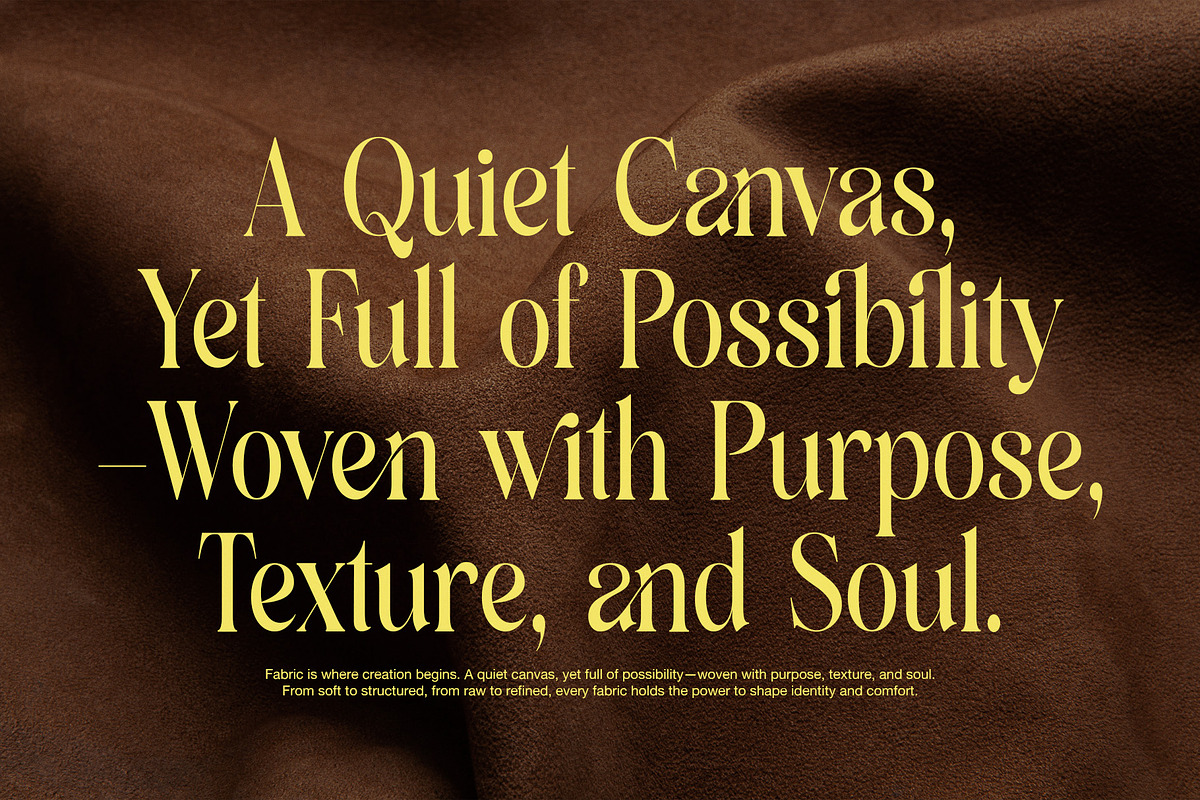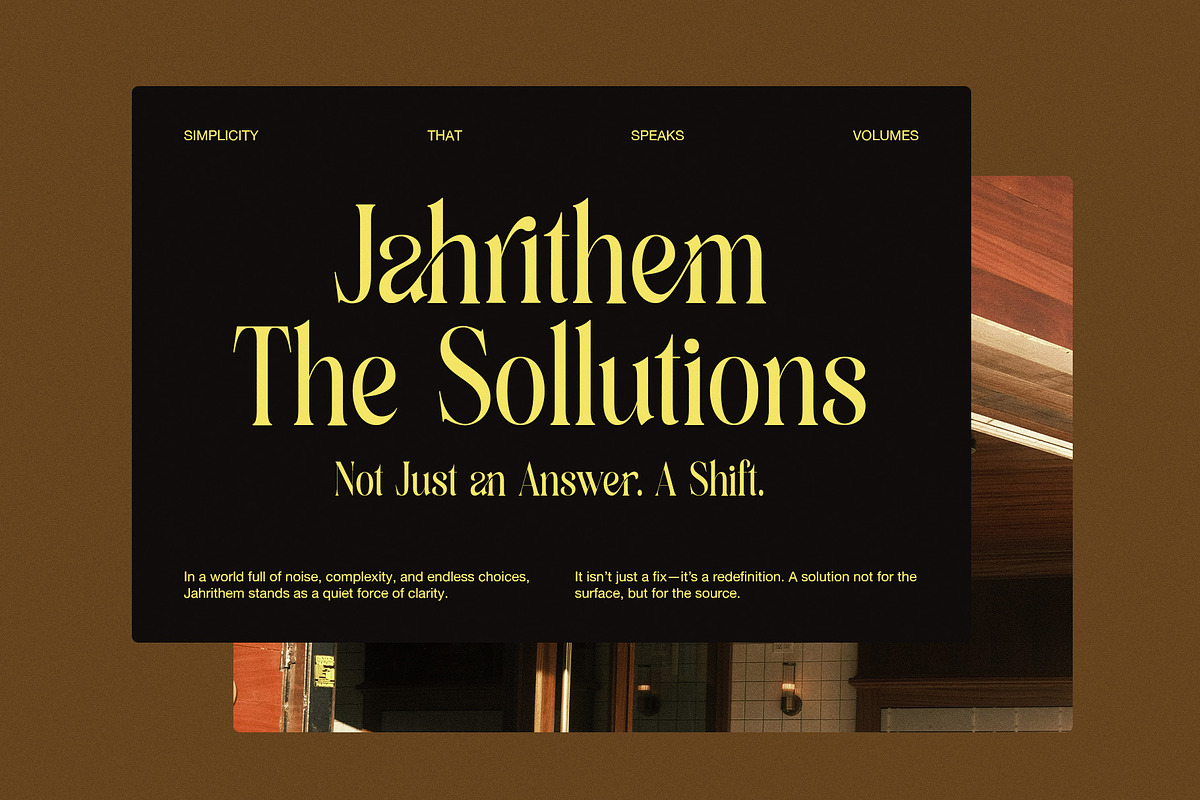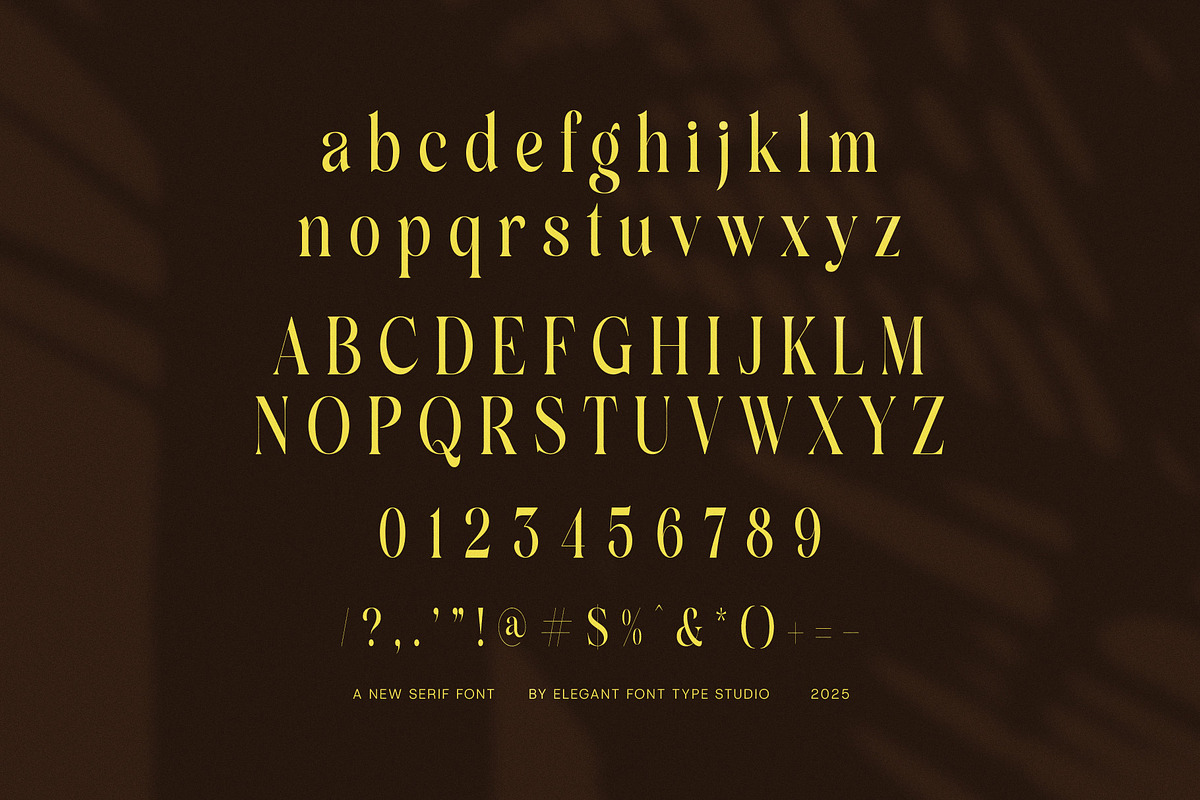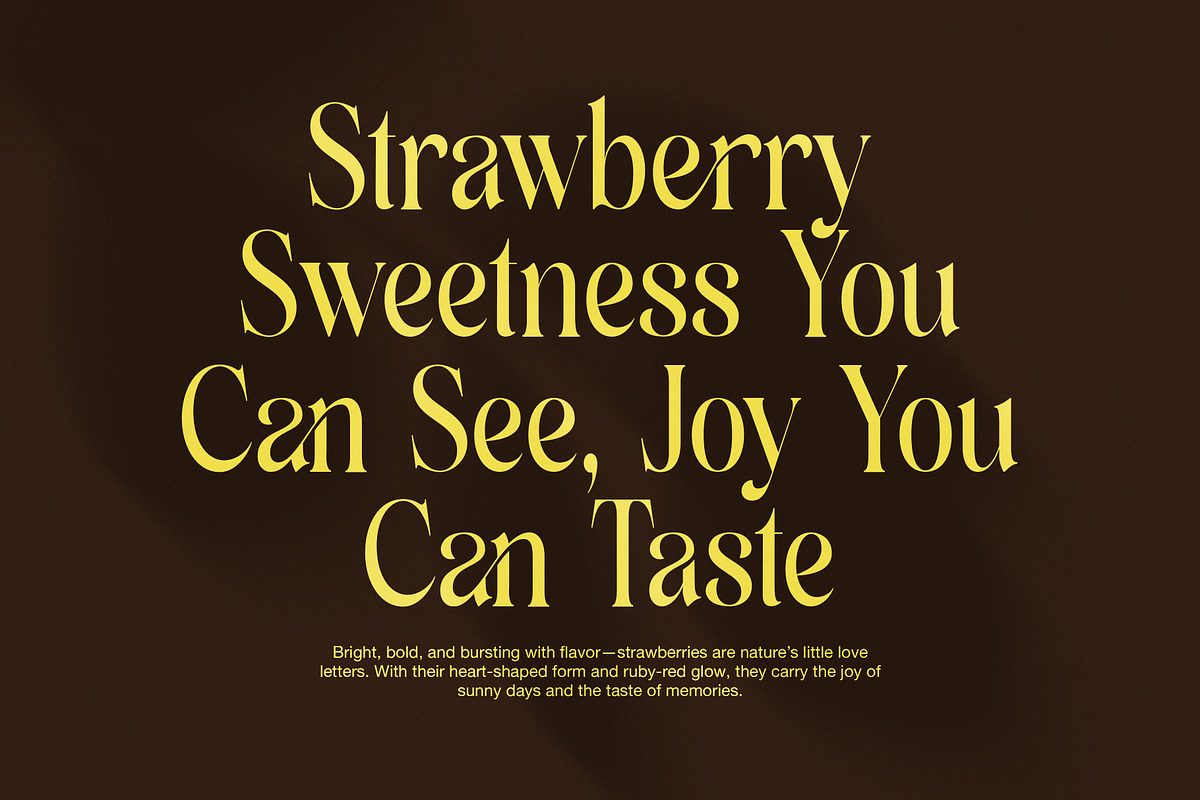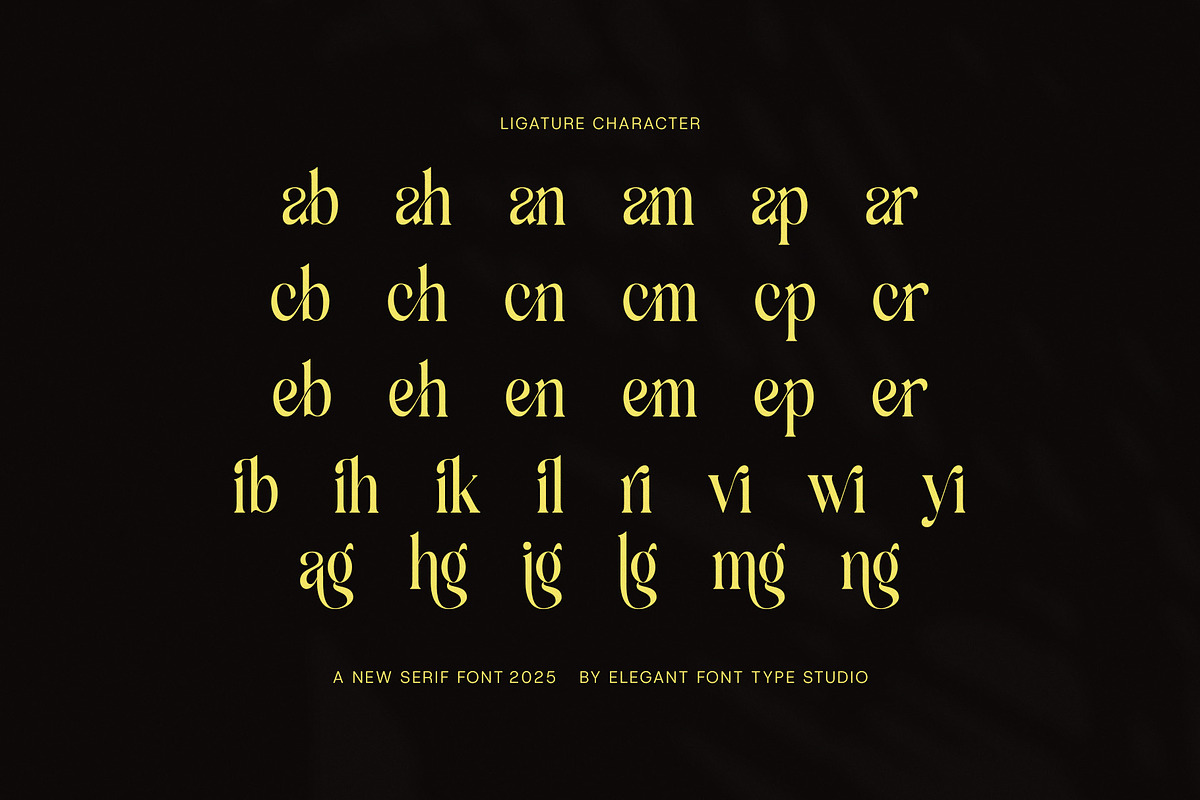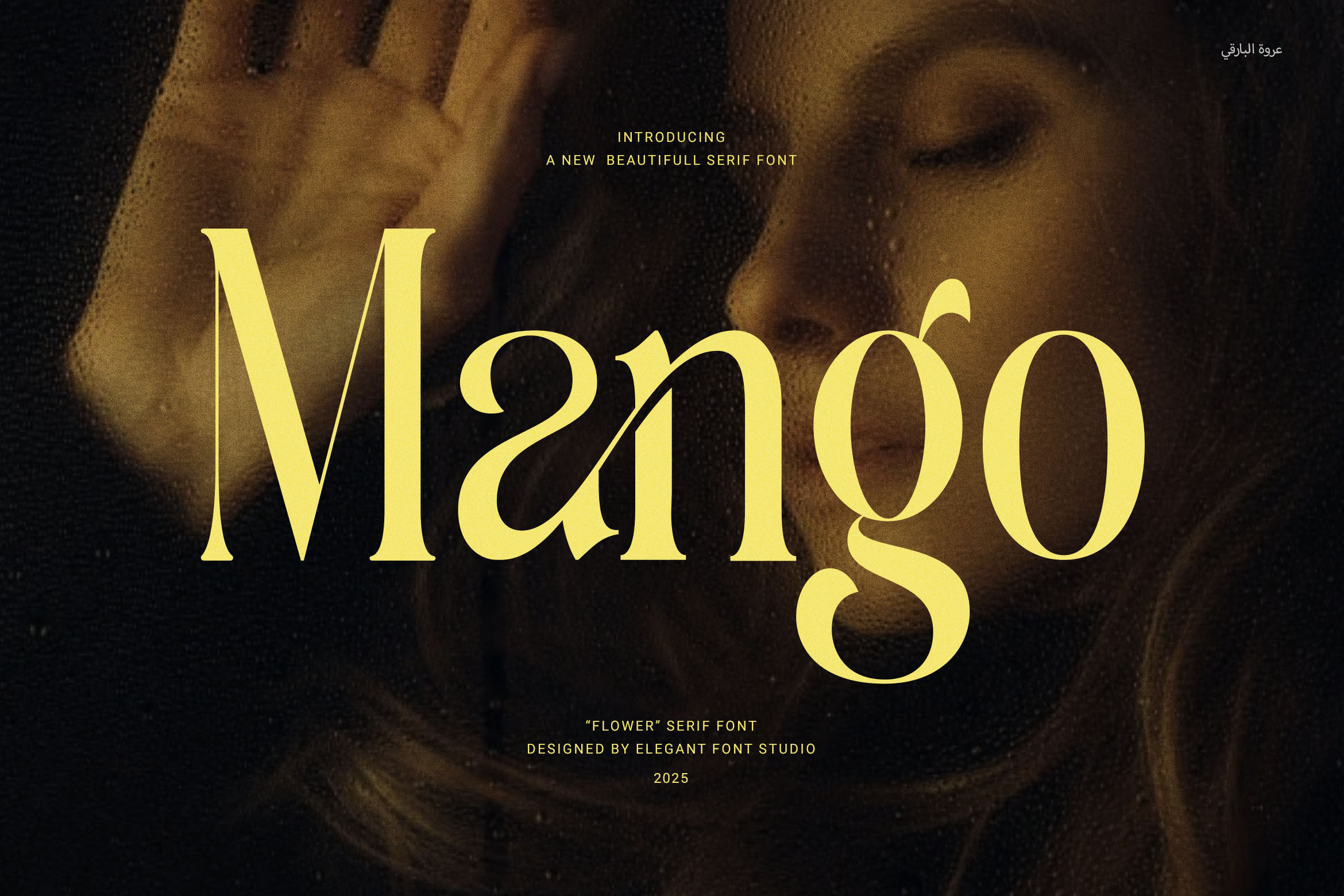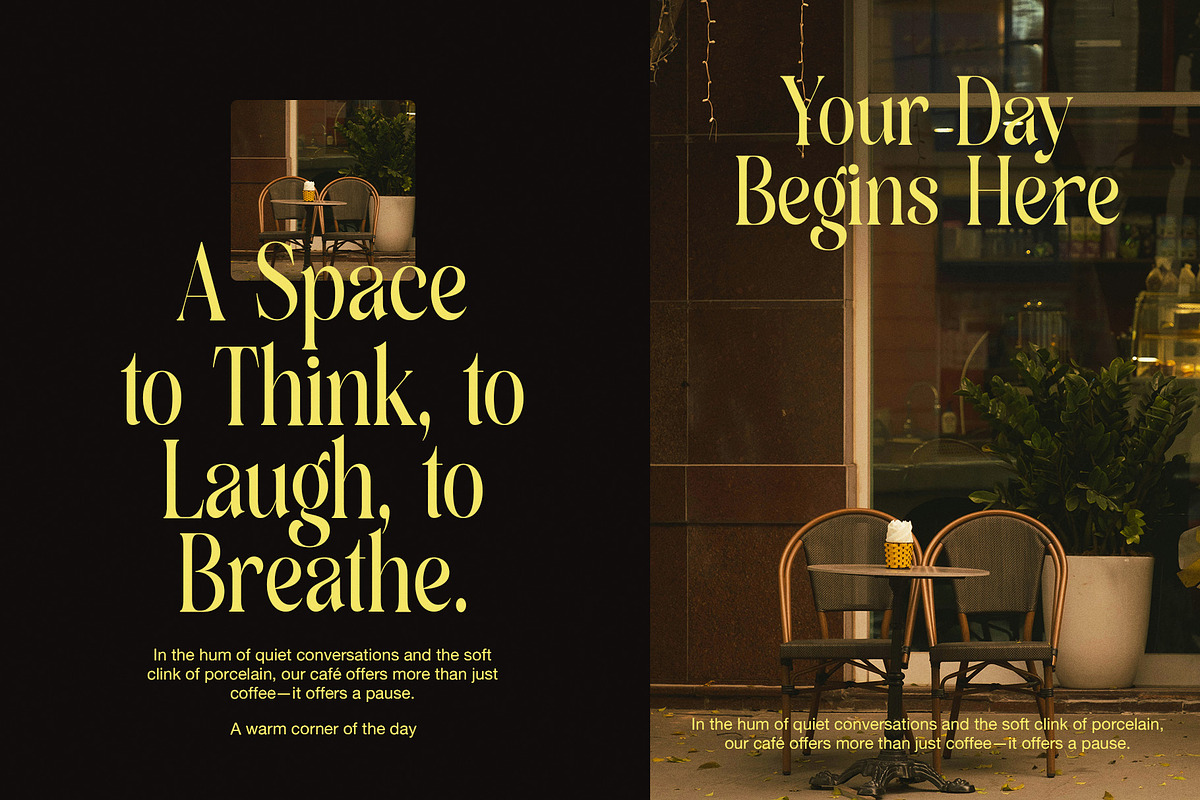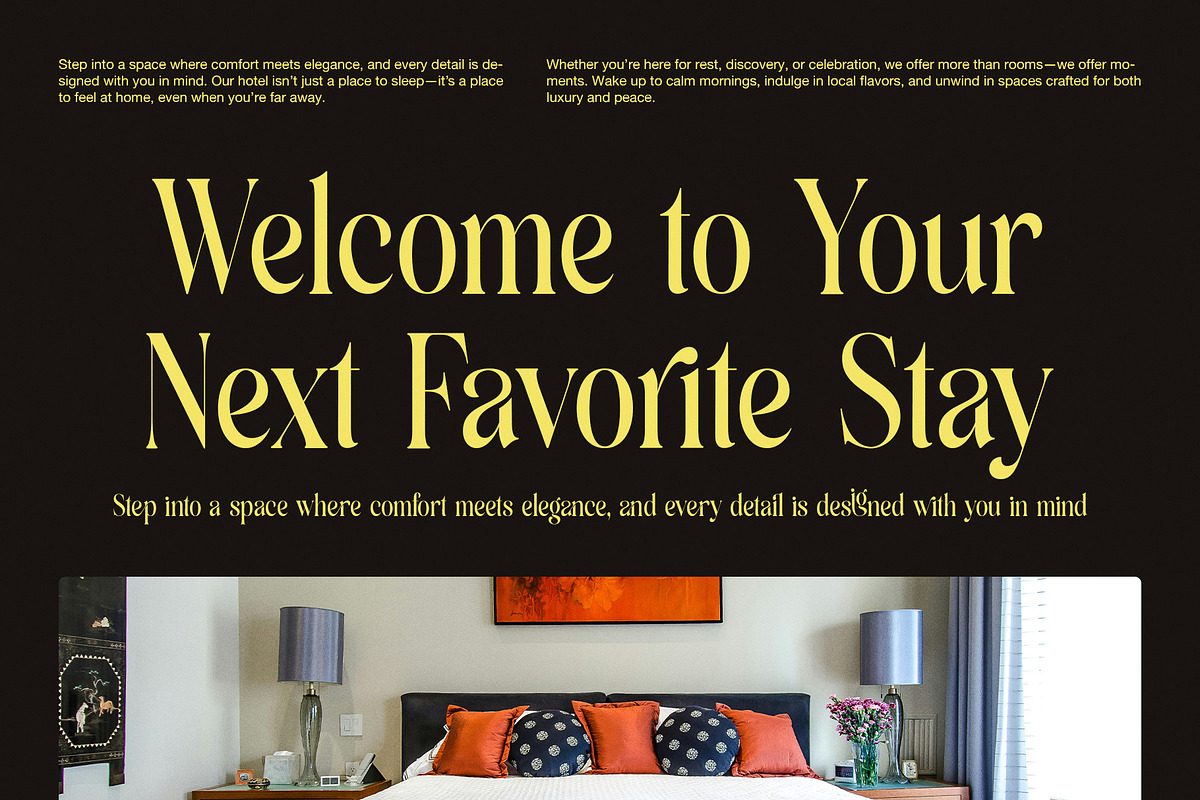
Mango Elegant Serif Font
Mango Elegant Serif Font is a sleek and modern serif designed to bring elegance and clarity to all your branding projects. Featuring proportional letterforms and functional ligatures, this font adds a refined, polished touch to any design. It fits perfectly with logos, websites, magazines, layouts, packaging, and advertisements, helping your brand stand out beautifully.
This versatile font suits many industries, including boutiques, food, fashion, and corporate businesses. Mango balances style with readability, ensuring your message remains clear in both digital and print formats. Its smooth ligatures and well-crafted shapes enhance text flow, creating an attractive and professional appearance.
Key features of Mango Elegant Serif Font:
Modern serif with balanced, proportional shapes
Functional ligatures that improve text flow and beauty
Ideal for logos, branding, websites, magazines, layouts, and packaging
Perfect for boutiques, food products, fashion, advertising, and corporate use
High readability for print and digital media
In short, Mango Elegant Serif Font offers a timeless, stylish look combined with modern functionality. It is an excellent choice for any brand aiming for sophistication and clear communication.